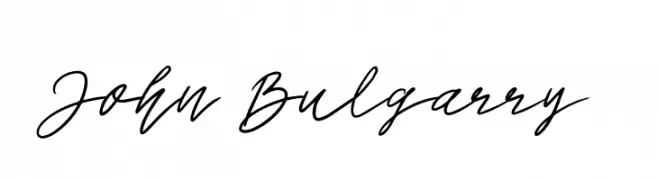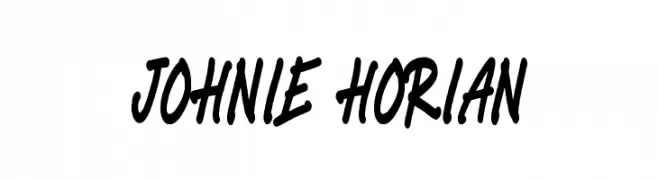
A bold, outlined font with a futuristic and geometric style.
A modern, geometric font with a futuristic and clean design.
A rugged, hand-carved font with a wild, untamed aesthetic.
A modern, rounded typeface with clean lines and balanced spacing.
A sleek, modern font with a geometric and minimalistic design.
A modern, geometric sans-serif font with clean lines and balanced proportions.
A playful, handwritten font with dynamic strokes and a casual style.
A playful, handwritten font with tall, narrow letters and uniform strokes.
A bold, distressed font with a gritty, hand-drawn style.
A distressed, chaotic font with jagged, scratch-like strokes.
A bold, graffiti-inspired font with a dynamic, hand-drawn style.
A bold, brush-style font with dynamic and expressive strokes.
A bold, graffiti-inspired font with sharp, angular lines and dynamic strokes.
A bold, graffiti-inspired font with dynamic and angular strokes.
A bold, graffiti-inspired font with dynamic and angular letterforms.
A decorative, geometric font with bold outlines and abstract character designs.
A decorative, abstract script with a mysterious, ancient appearance.
A cryptic, distressed font with angular shapes and dot accents.
A decorative knotwork font with bold, intertwining lines and geometric shapes.
A playful, hand-drawn font with a whimsical, cartoonish style.